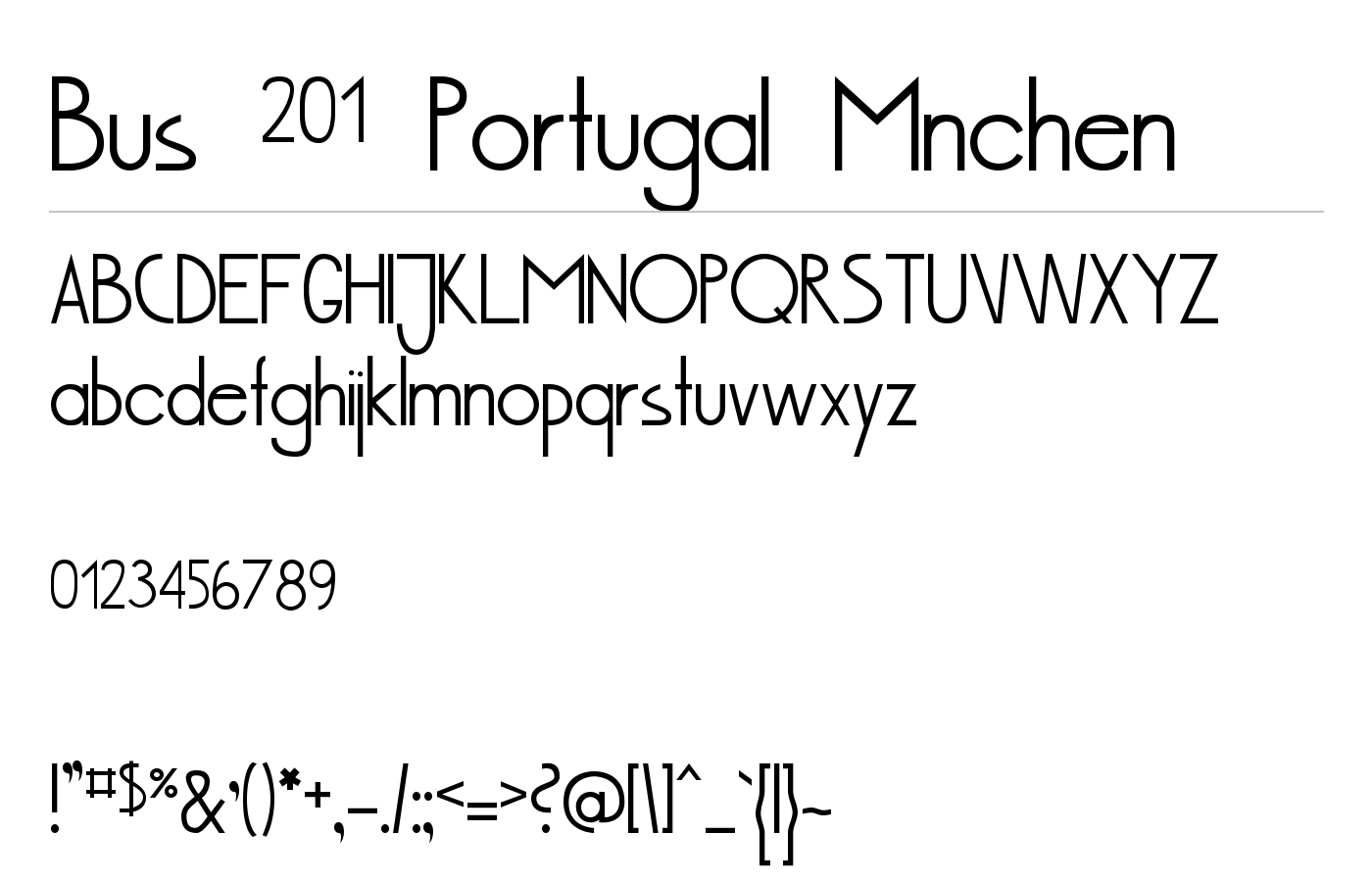
Bus 201 Portugal Mnchen is a tall, slender sans serif font with a modern and minimalist feel. Its clean lines and geometric shapes, combined with a high x-height and narrow letterforms, give it an elegant yet contemporary personality, making it ideal for stylish branding, editorial headlines, and sleek packaging designs. This font works best where a refined and distinctive look is needed, especially in fashion or creative industries.
Bus 201 Portugal Mnchen Font
About Bus 201 Portugal Mnchen Font
| Font family | Bus 201 Portugal Mnchen Font |